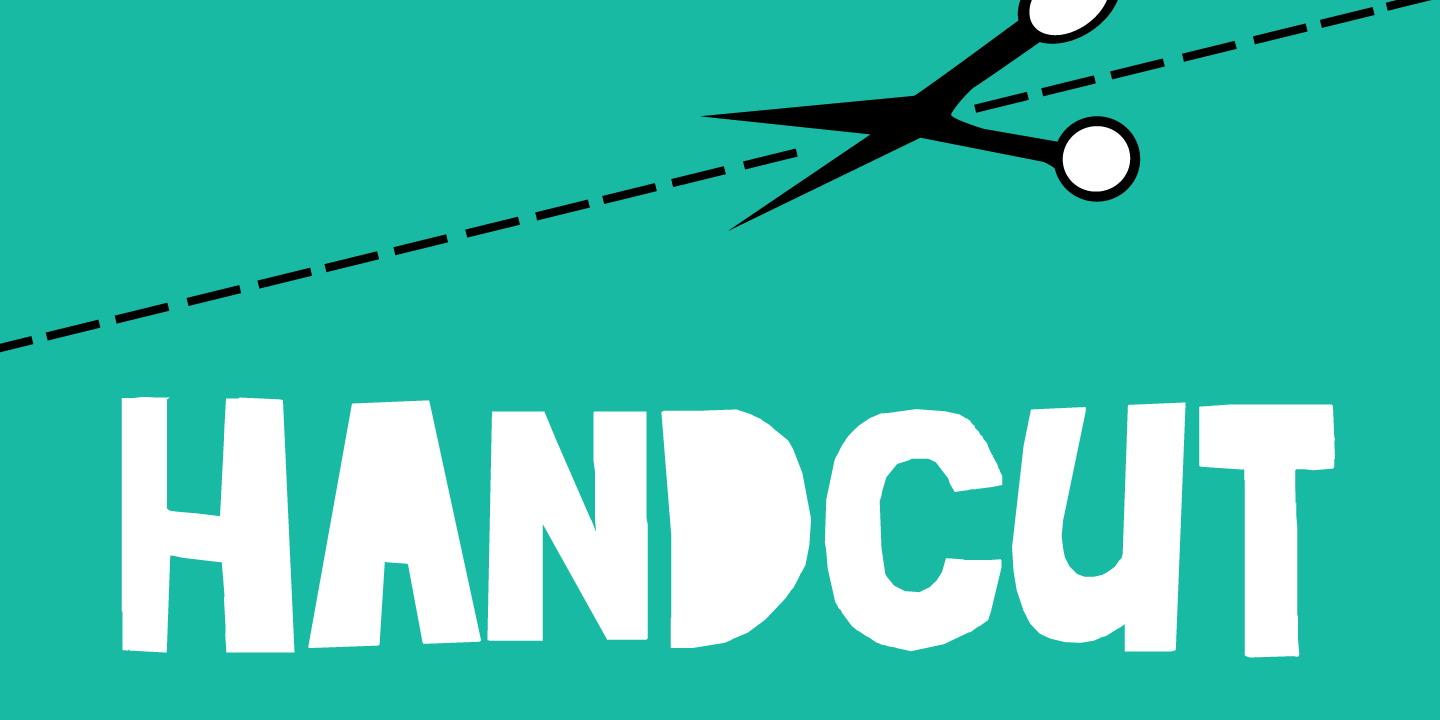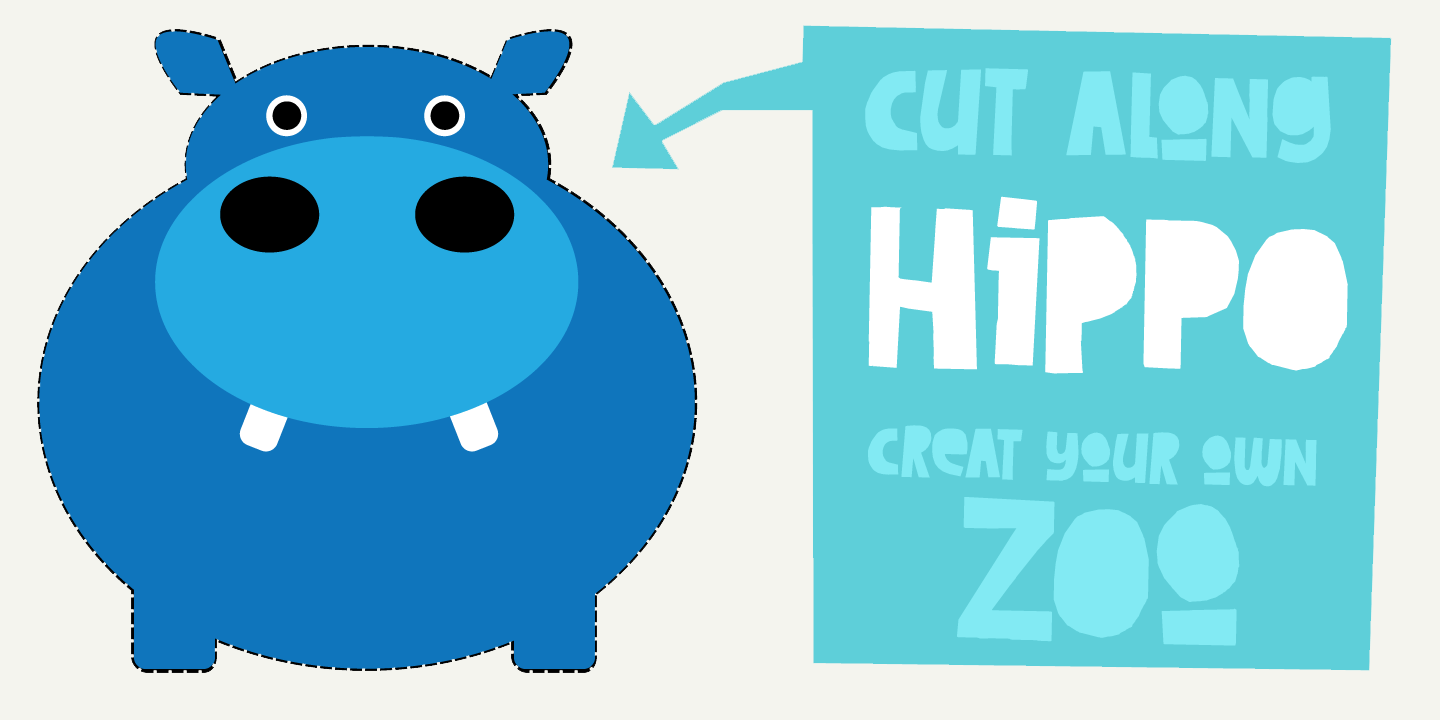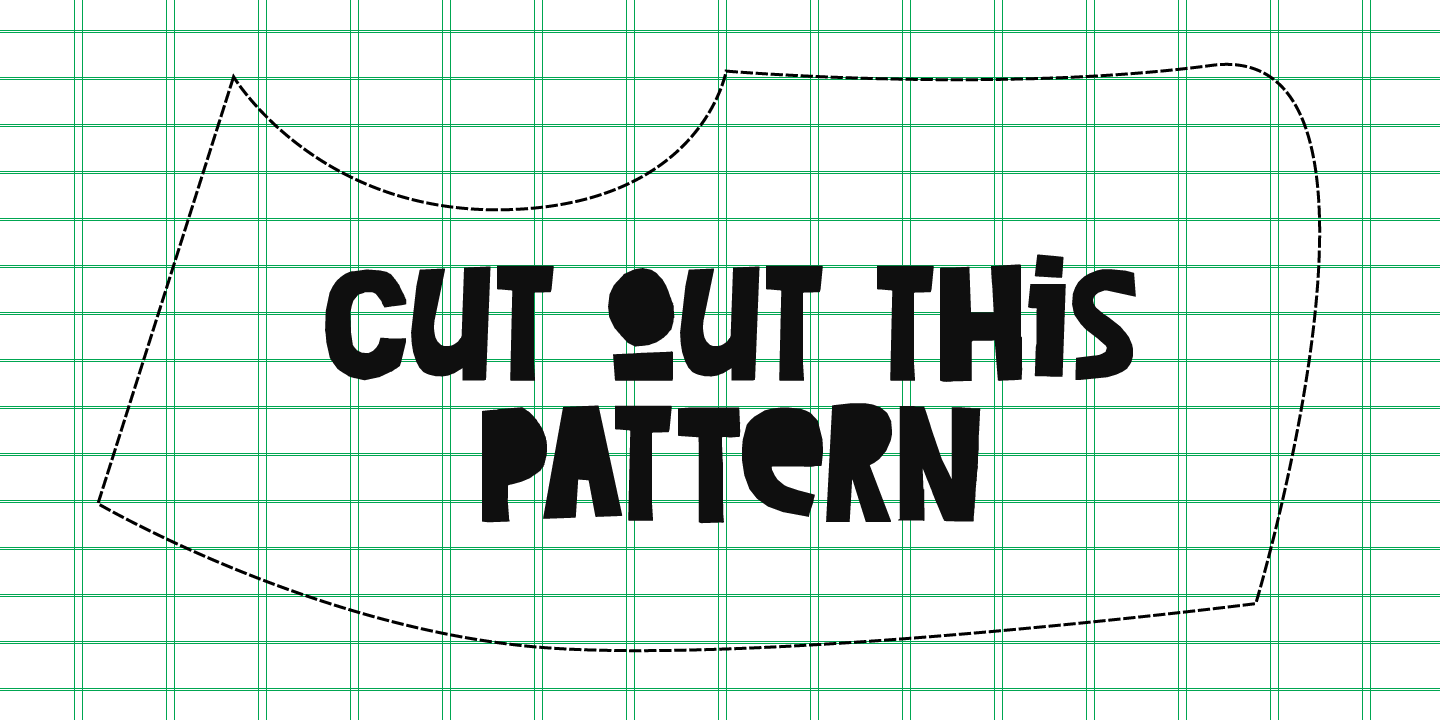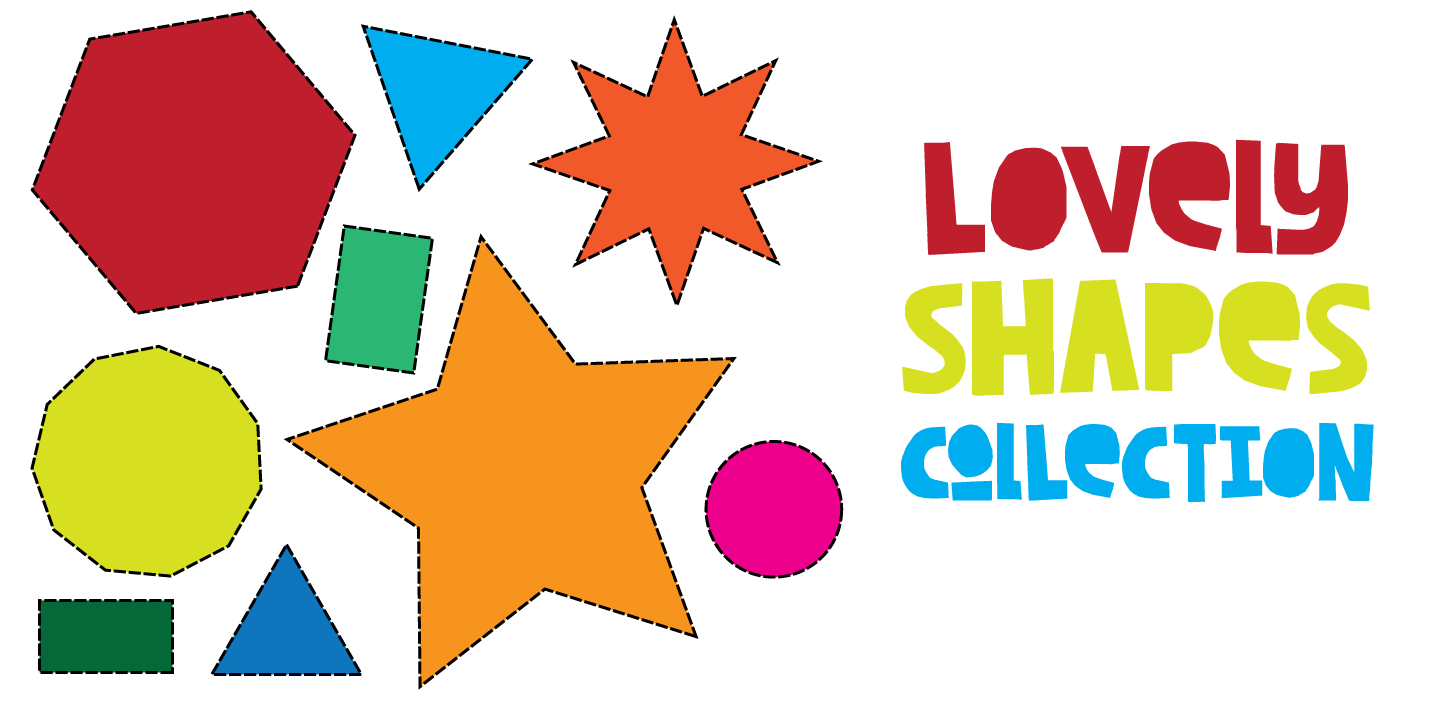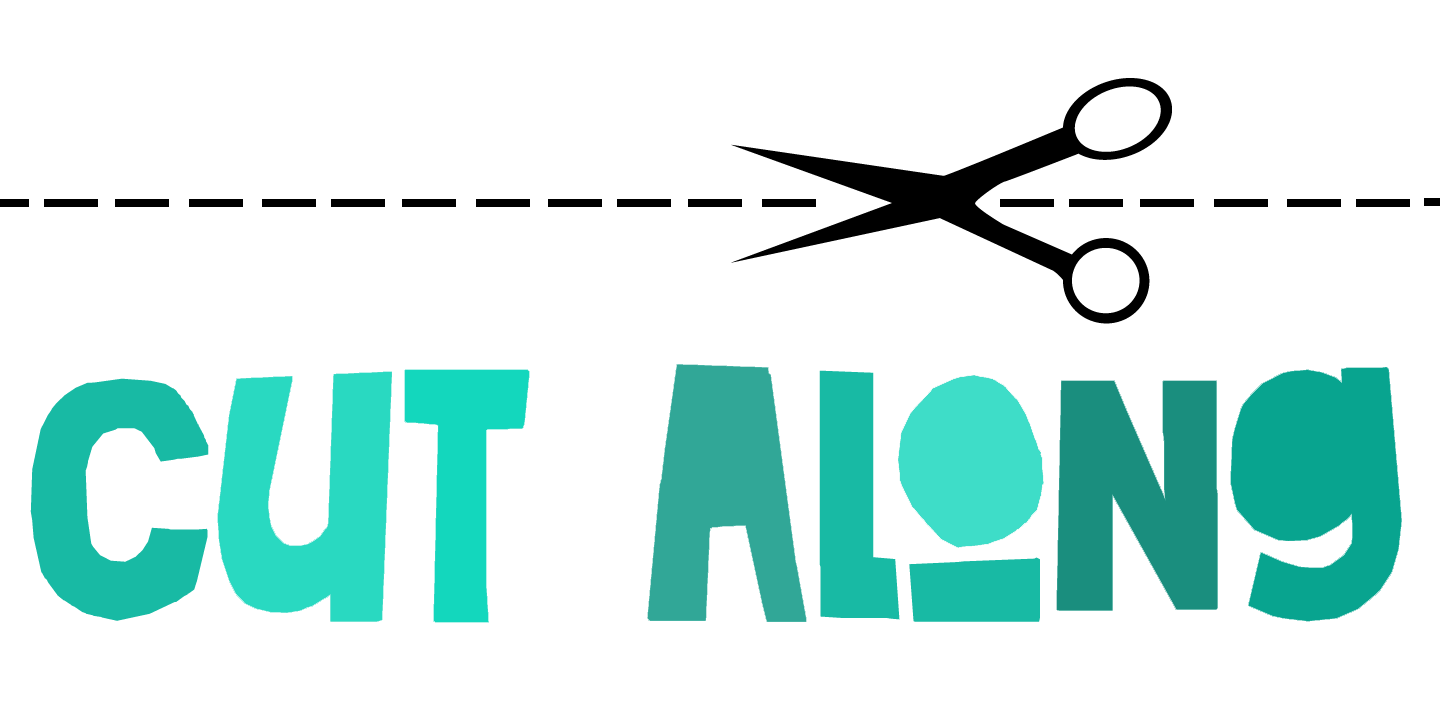
I made Cut Along by stealing some red cardboard from my kids (red, because they didn\’t have any black?) and cutting out the glyphs one by one with a pair of scissors. I then pasted the shapes onto white paper, scanned them and turned them into a font.…